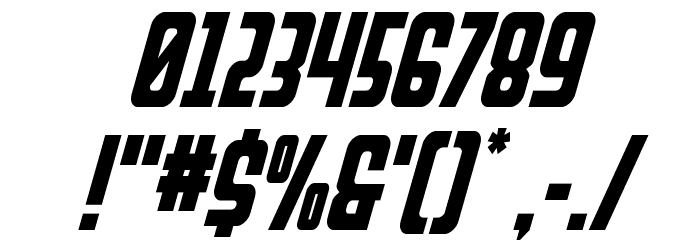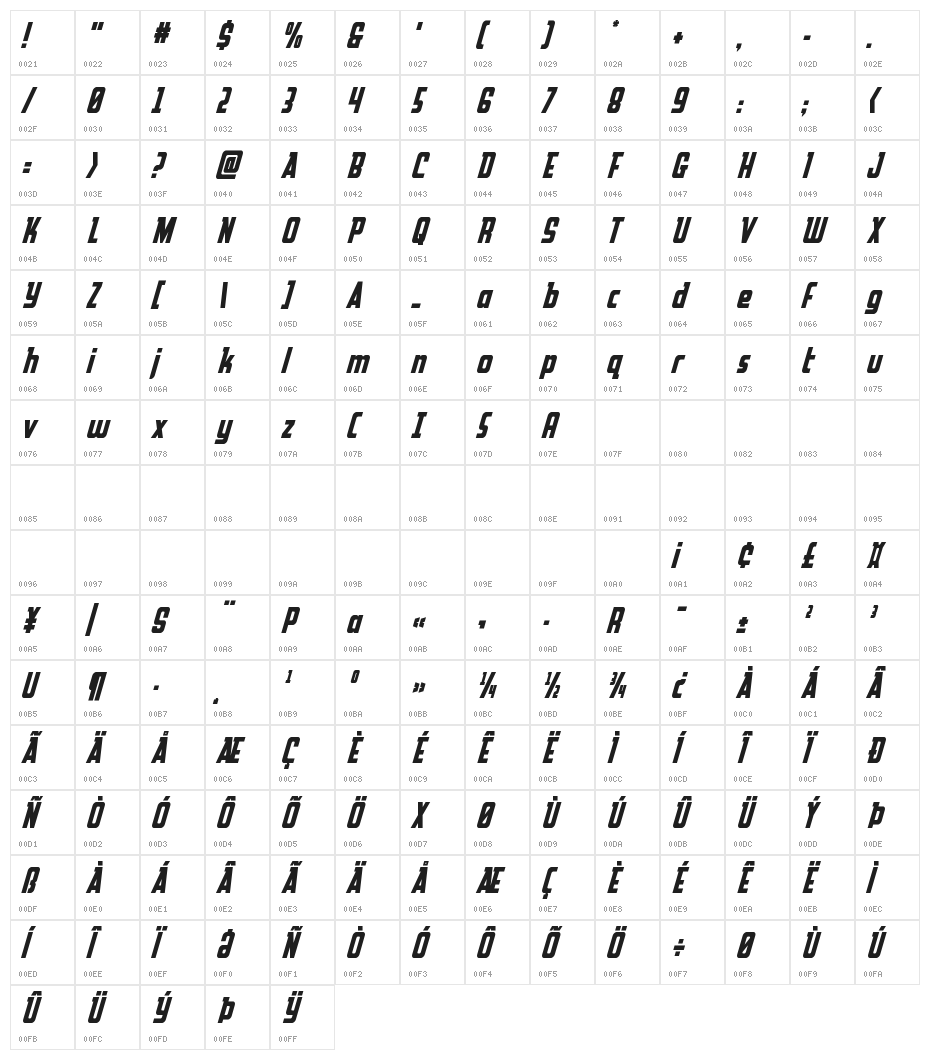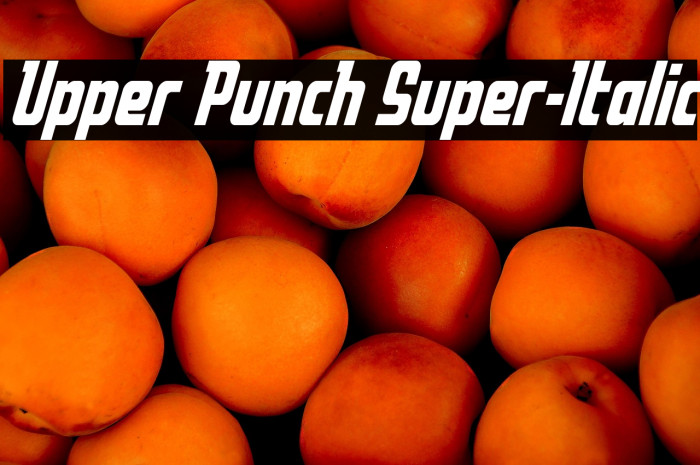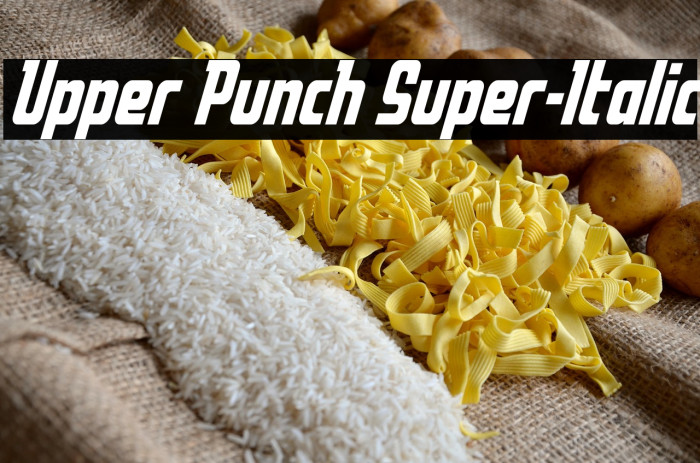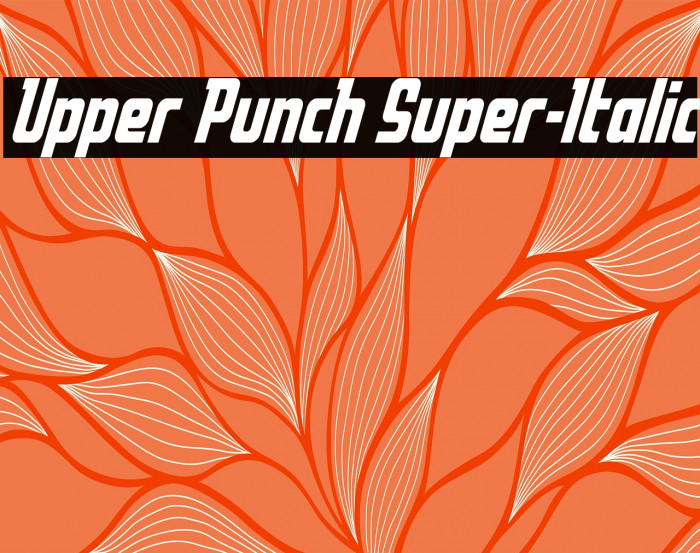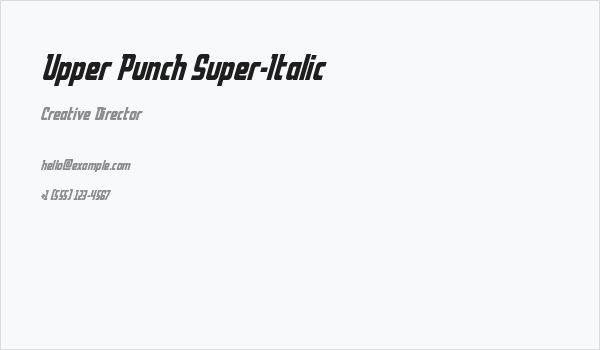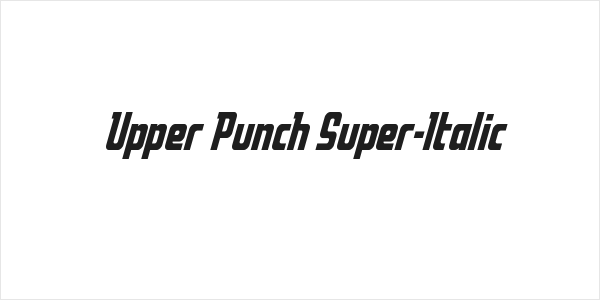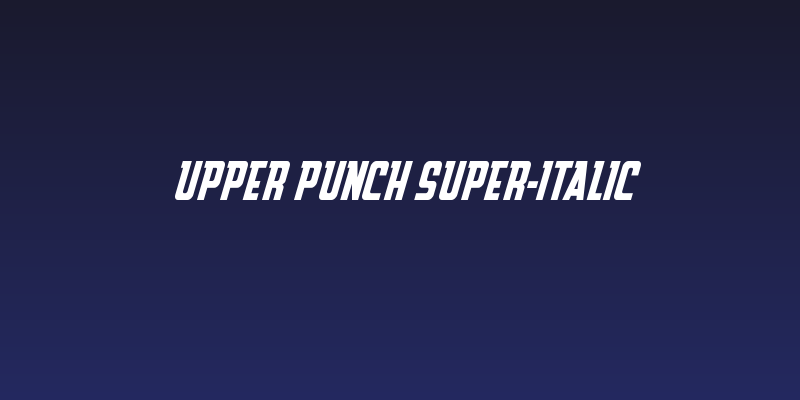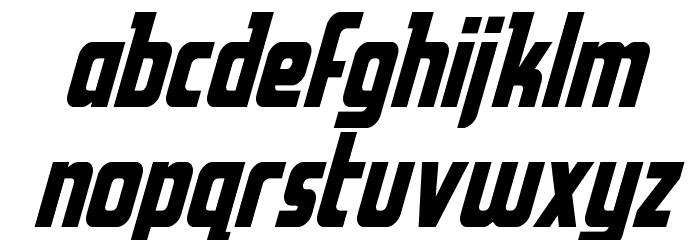
Upper Punch Super-Italic Font
Upper Punch Super-Italic Description
This font features a bold and dynamic style with a strong italic slant, giving it a sense of movement and energy. The characters are robust and impactful, making it ideal for attention-grabbing headlines and statements. The uppercase letters are tall and commanding, while the lowercase letters maintain a consistent flow with the same italicized angle. Numbers and special characters are designed to match the boldness and slant of the alphabet, ensuring a cohesive look across all text elements. The font's thick strokes and sharp angles contribute to its modern and assertive appearance.
| Proposed Projects | Ideal for sports branding, dynamic posters, and impactful headlines. |